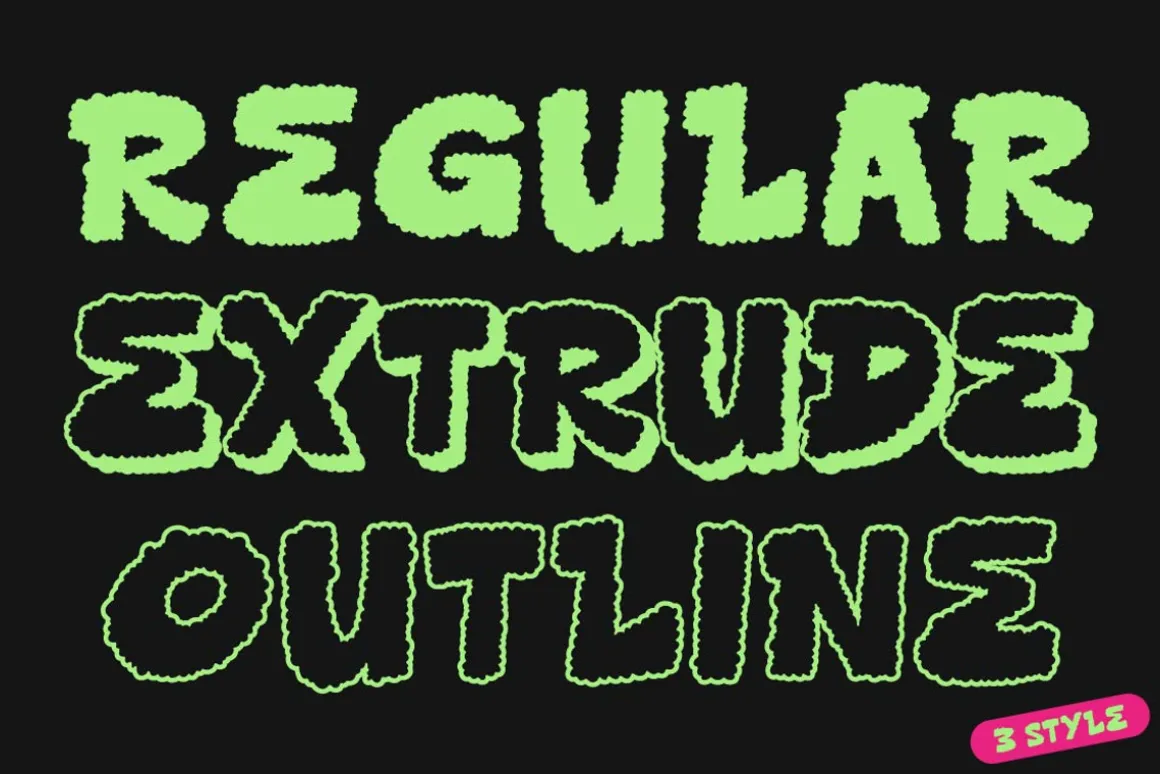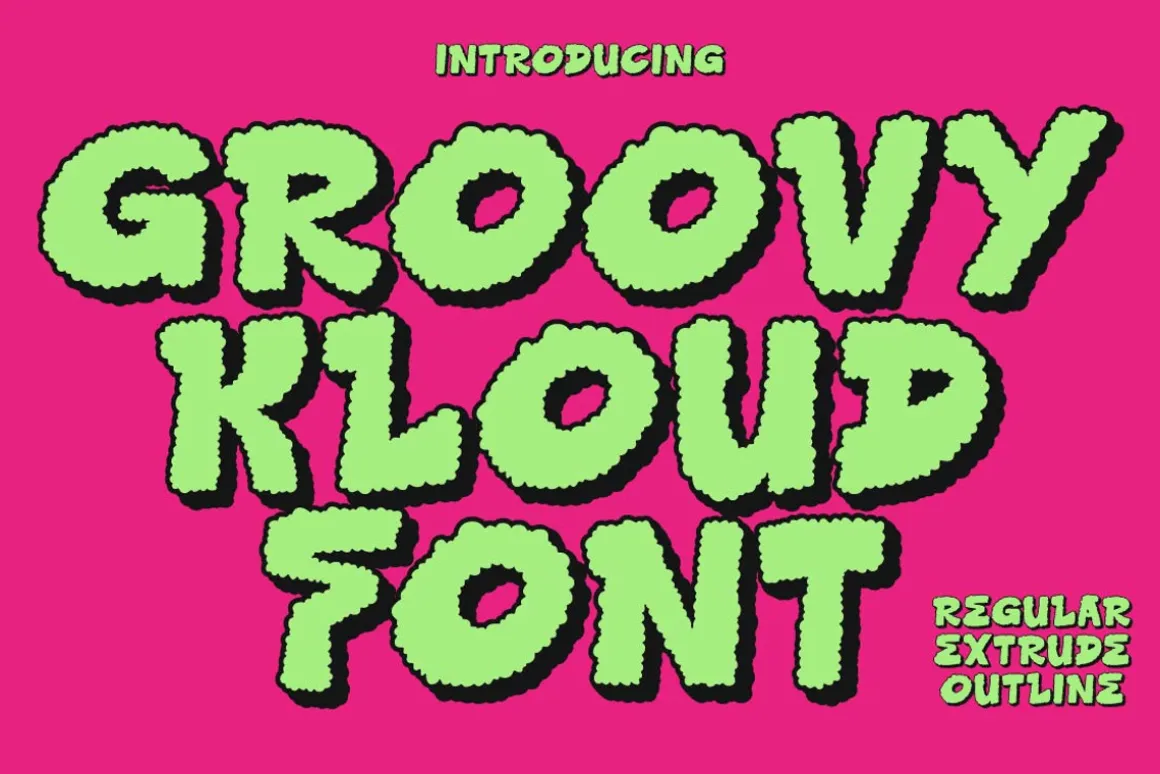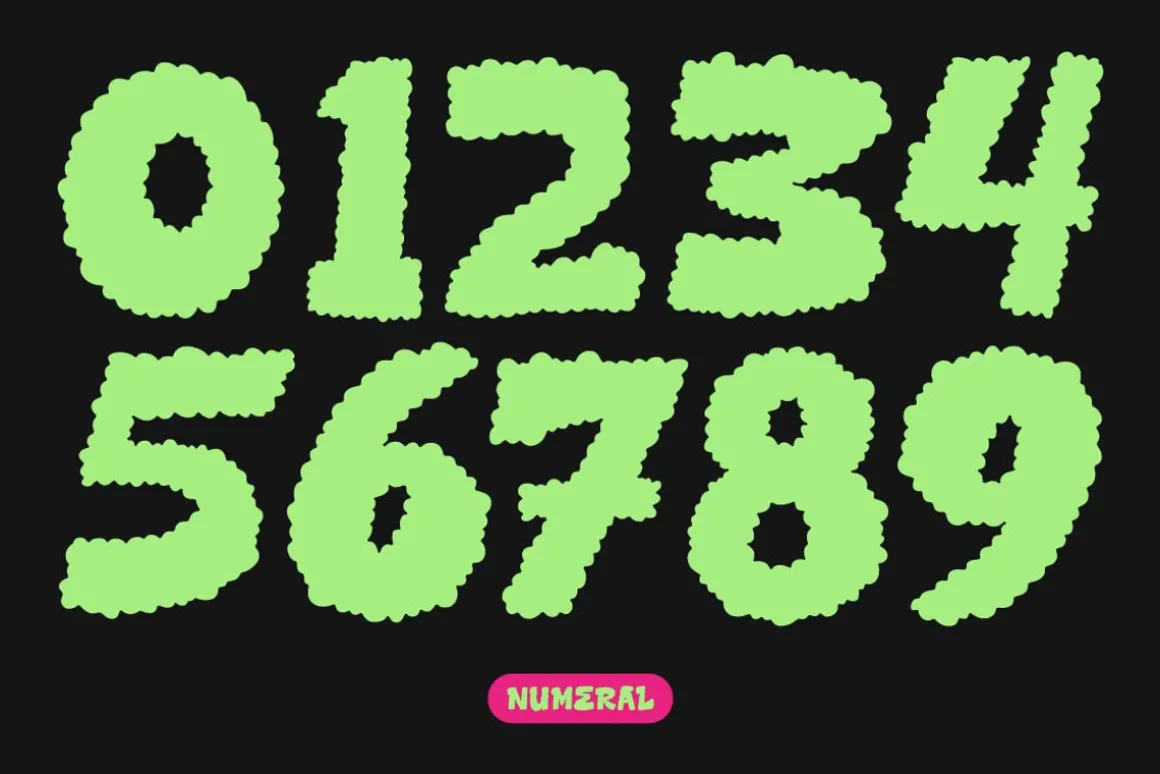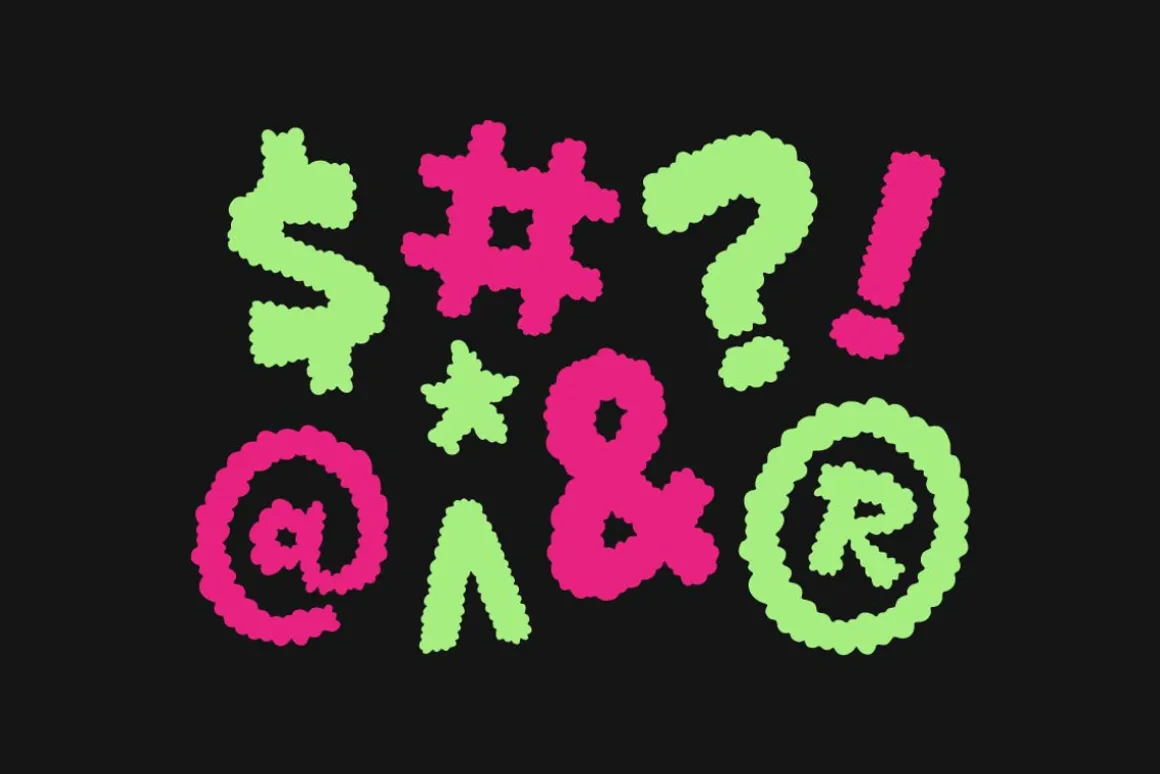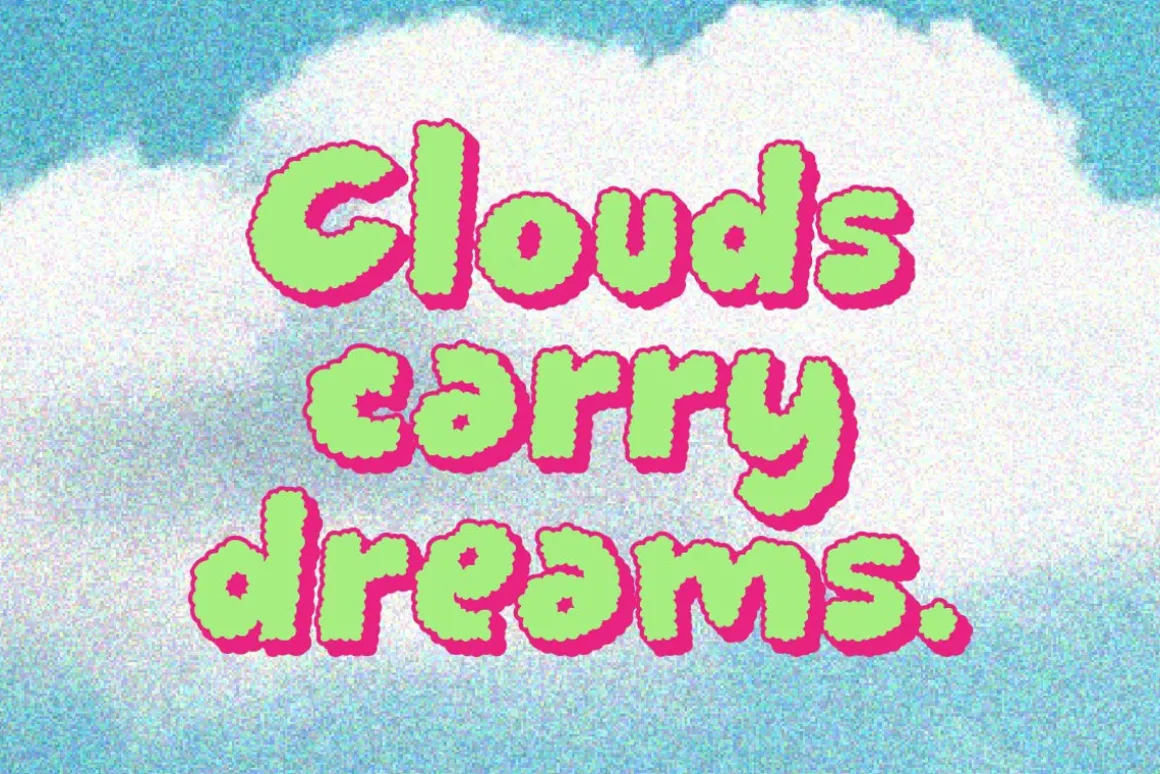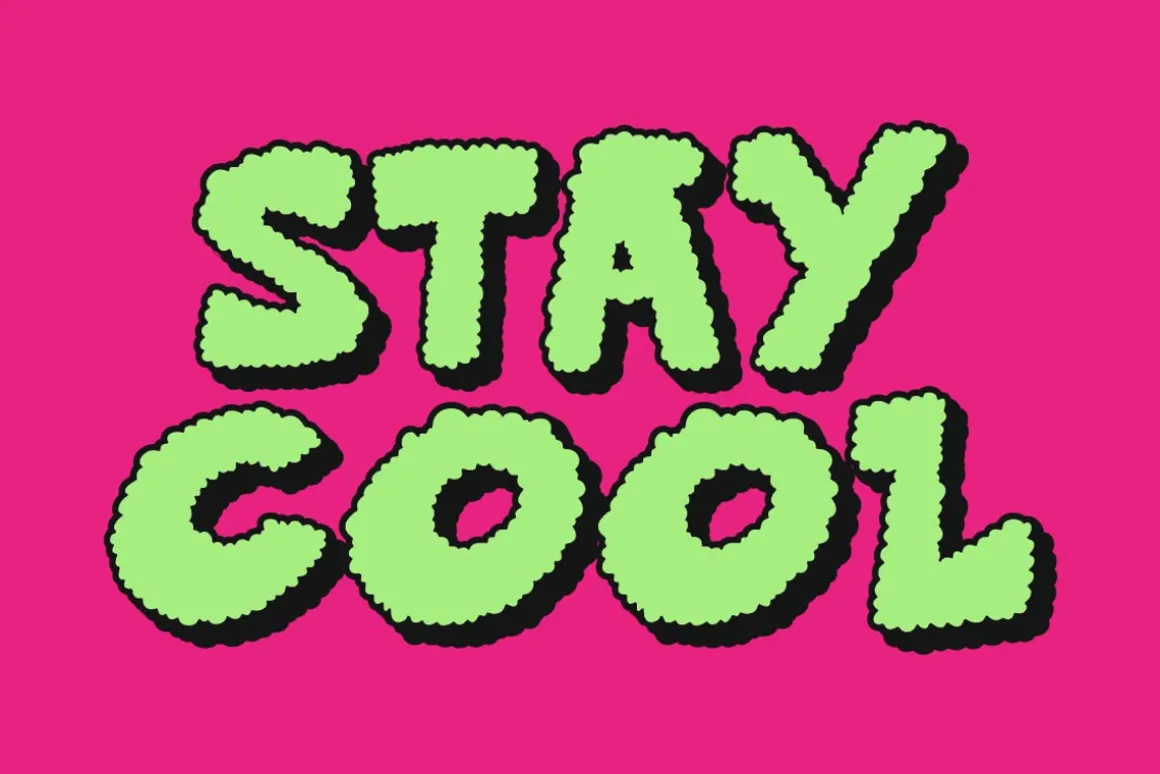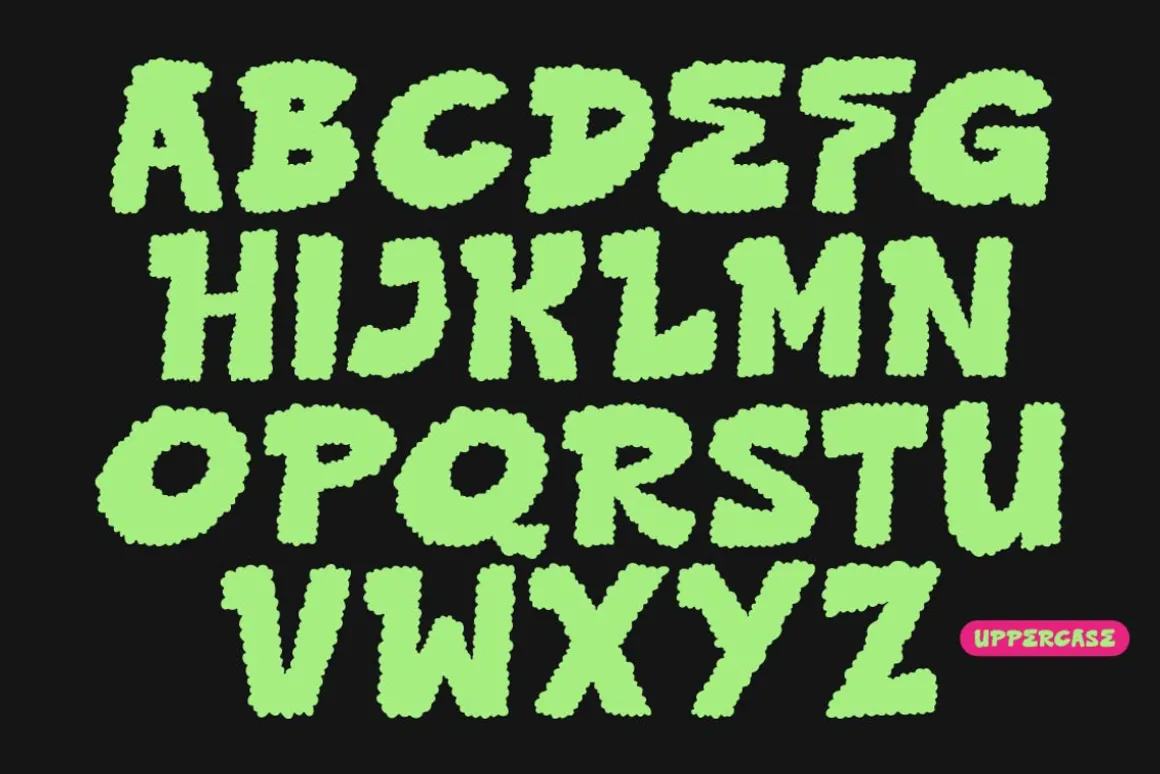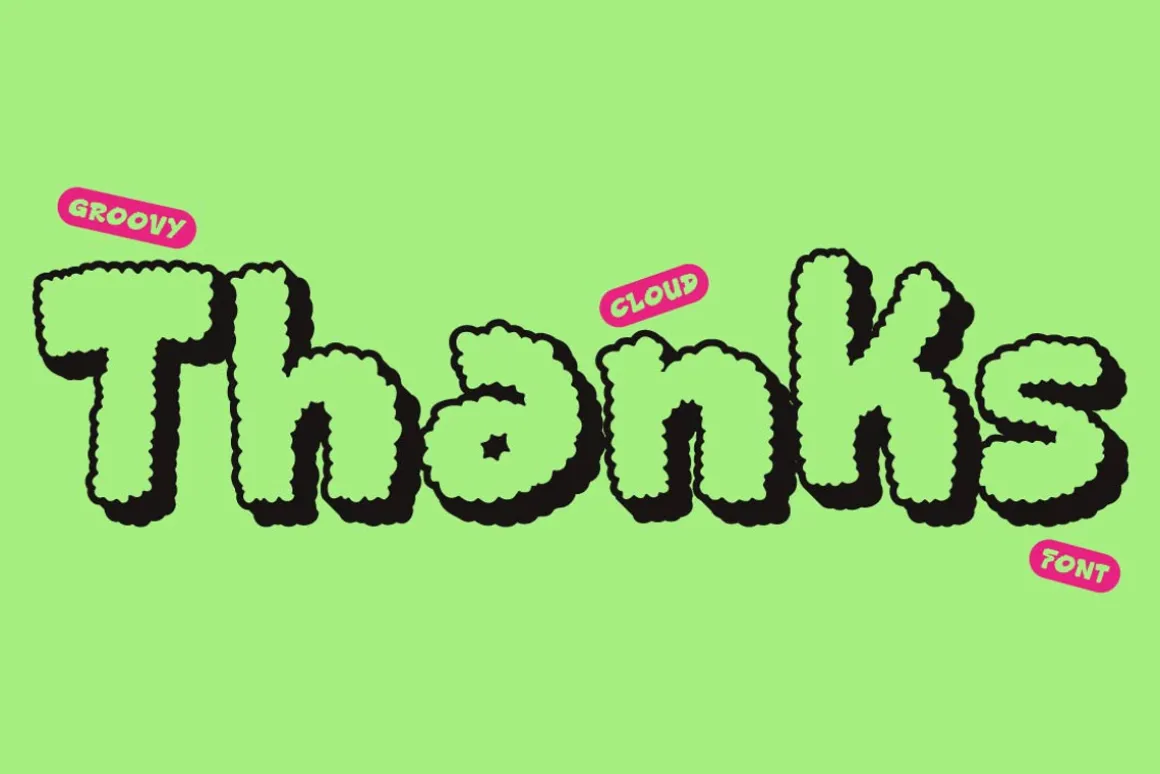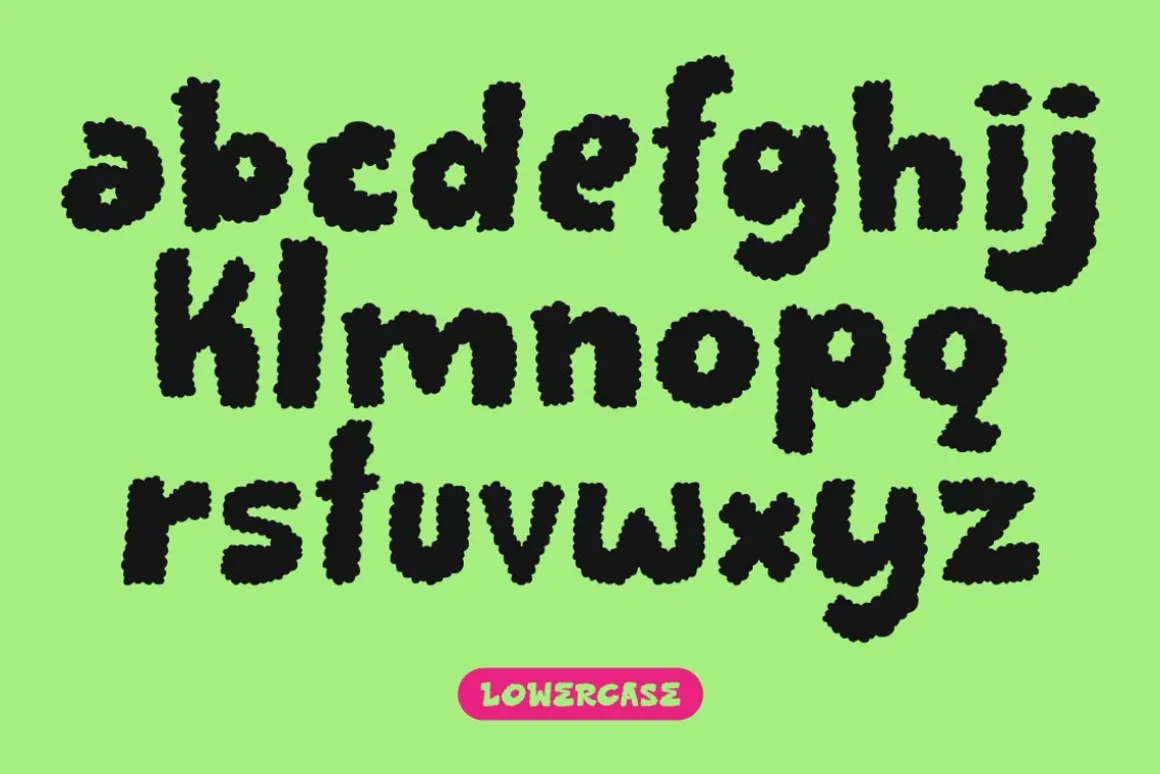
Groovy Kloud is a charming display font created to mimic the soft, wavy appeal of clouds in the sky. With its playful, cheerful design, this font brings an airy, whimsical touch to any project.
With three versions—regular, extruded, and outline—this font offers flexibility and creativity, allowing you to play with depth and texture in your designs.
Whether you’re creating a cheerful headline, a playful logo, or an imaginative poster, Groovy Kloud adds a fun, charming style to your work.